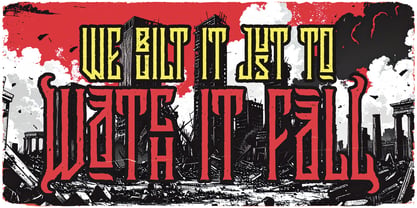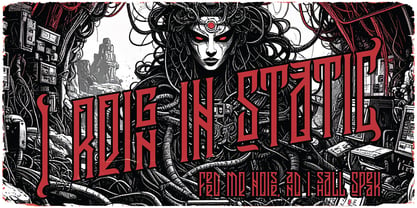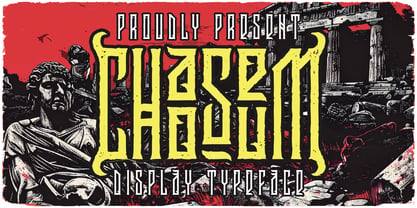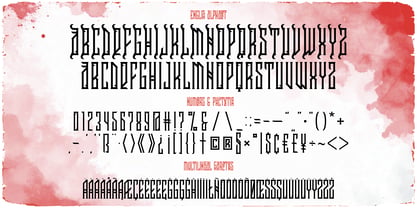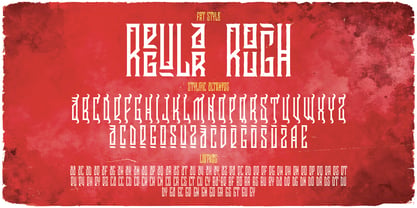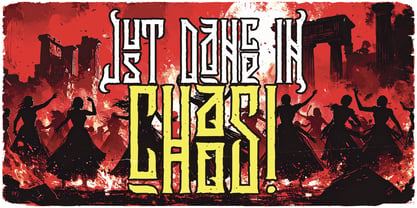
Chaoseum
by Vozzy
The Chaoseum Font Family was designed by Oleg Voznyy and published by Vozzy. Chaoseum contains 2 styles and family package options. More about this family
Introducing "Chaoseum," a distinctive font designed to make a statement in headlines and accent inscriptions. Perfect for capturing attention, this font features a wide array of additional characters, punctuation marks, and multilingual options, along with an extensive selection of standard ligatures—ensure your software supports these OpenType features for optimal use. "Chaoseum" will elevate your designs, adding a unique flair that stands out in branding, web design, and editorial projects.
Designers: Oleg Voznyy
Foundry: Vozzy